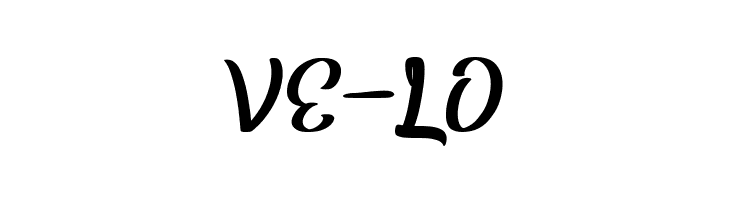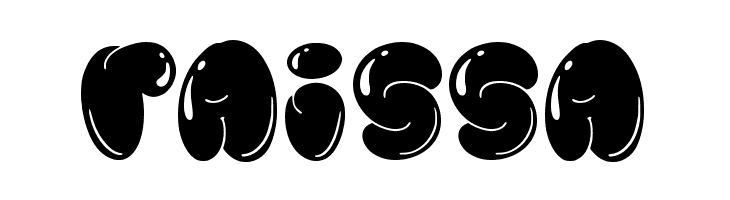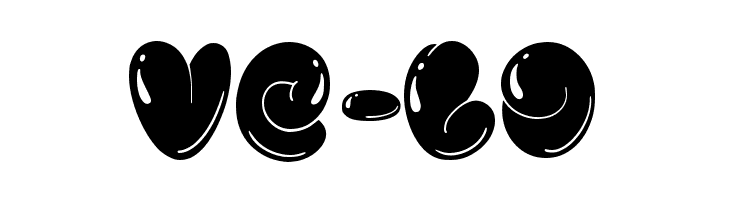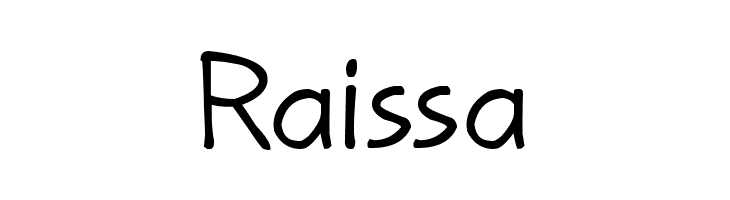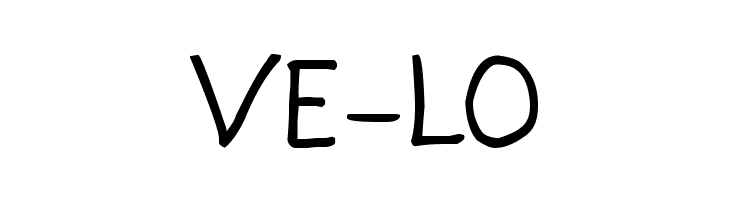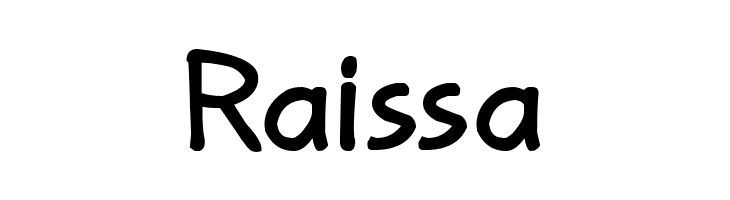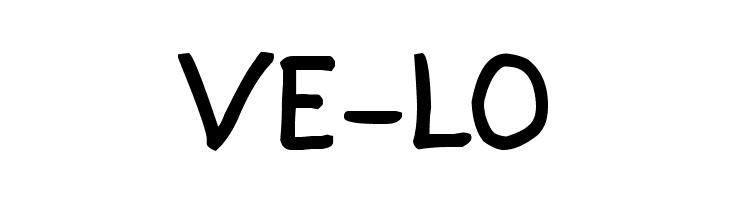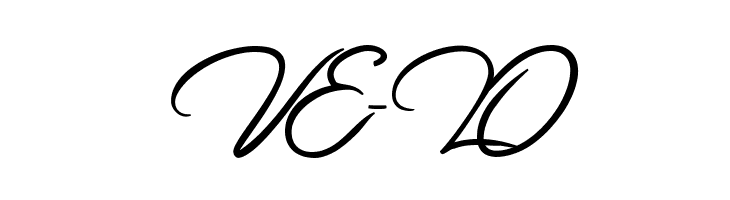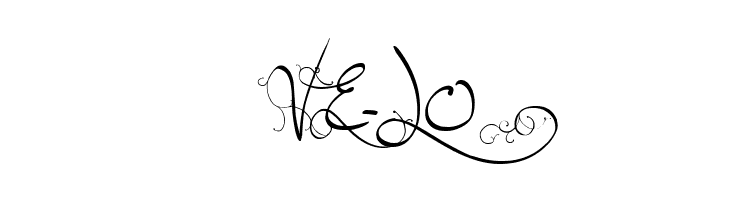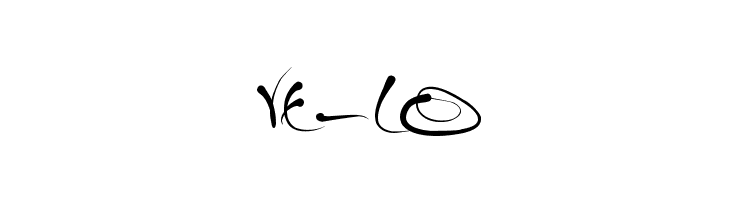
• Jag Alskar Dig Oblique
• Jag Alskar Dig Skylt
• Jag Alskar Dig Skylt Oblique
• JagedEdge
A jagged, edgy font with irregular, sharp contours for a bold, dynamic look.
• Jaina Sans Bold
( Linh Nguyen - linh-n.com/ )
A bold, modern typeface with clean lines and excellent legibility.
• Jaldi
A clean, modern sans-serif typeface with consistent stroke width and excellent readability.
• Jaldi Bold
A bold, modern sans-serif font with clean lines and rounded edges.
• Jaleas
( Javier Rivas - graphicriver.net/user/jrdesign08 )
An artistic, calligraphic font with sharp serifs and dynamic curves.
• JALISCO COMPANY
A playful, hand-drawn font with bold, uneven strokes.
• JALISCO COMPANY
A bold, hand-drawn font with a playful and artistic style.
• JAMES FONTS
( Fonts by Harder Type Foundry )
A bold, distressed font with a grunge, urban style.
• james glover
A bold, futuristic font with geometric shapes and circular elements.
• Jamscript
A lively and dynamic script font with fluid, connected letterforms.
• Jamstone Regular
A bold, geometric font with sharp angles and block-like shapes.
• Jann Script
A playful, handwritten font with smooth, rounded edges and a casual style.
• Jann Script Bold
A bold, playful script font with a casual, handwritten style.
• jano
( Fonts by Jano )
An expressive, artistic font with fluid, cursive strokes and dynamic letterforms.
• January Threed
A bold, playful font with a three-dimensional effect and rounded edges.
• Jarida
A dynamic and flowing script font with elegant curves and smooth connections.
• JAVA ISLAND